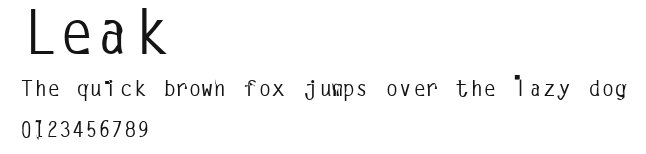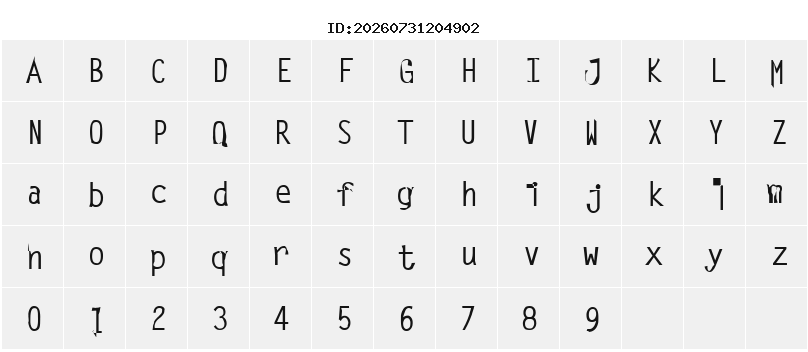
• Font Name: Leak
• Full Font Name: Leak
About Leak.ttf
Leak.ttf is a modern, elegant sans-serif font designed for ultimate readability and visual harmony. Perfect for branding, headlines, web design, and print materials.